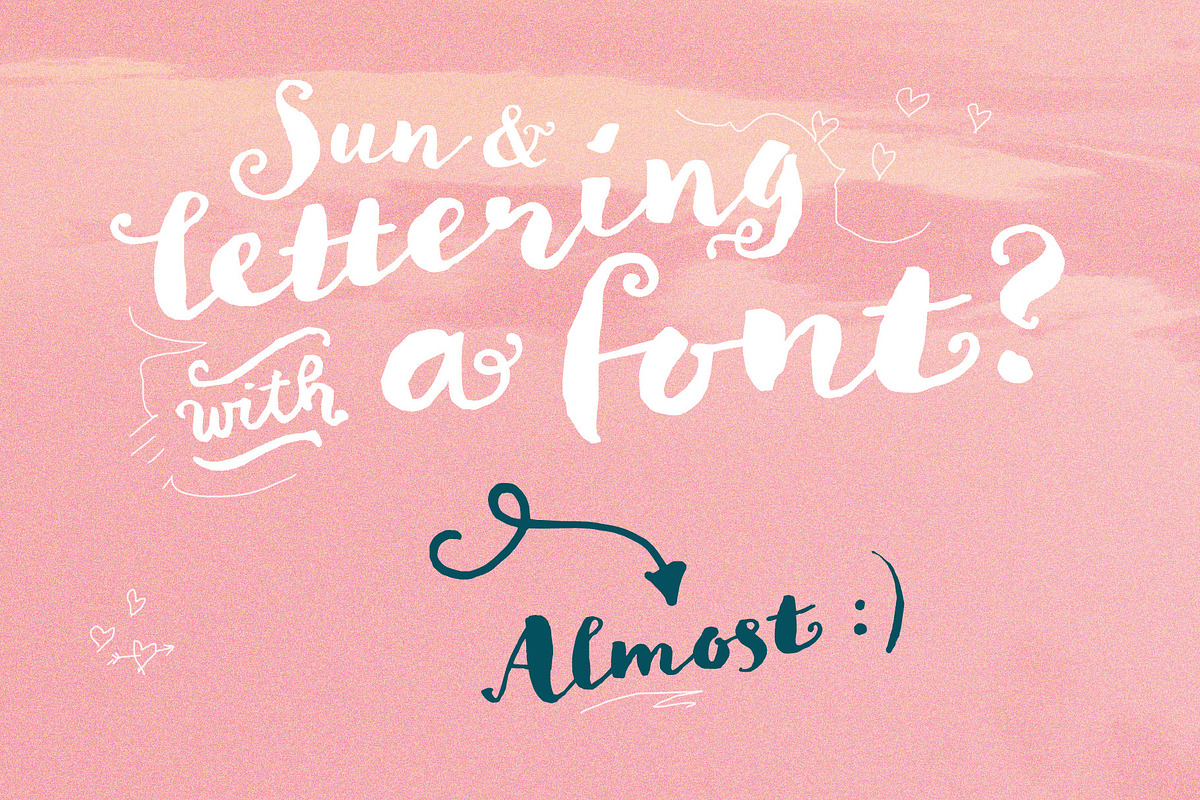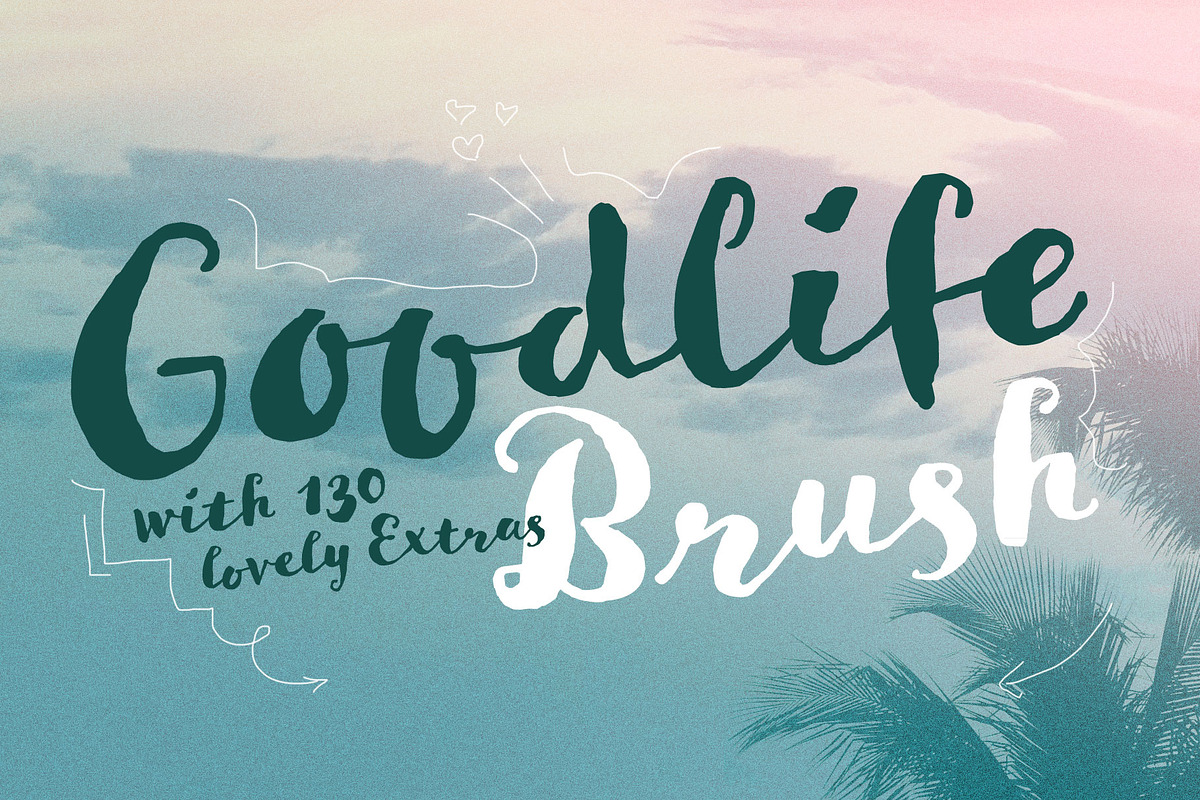
Goodlife Brush + Extras
The GoodlifeBrush is a lovely handlettering font designed by Hannes von Döhren with techincal support of Christoph Koeberlin. This font contains loads of features and a set of extras such as catchwords, arrows, ornaments & more. With this set and a little bit of love and care it is possible to create beautiful “handmade” graphics. Equipped with automatically exchanging alternates, ligatures, end forms, swash letters and some other features, Goodlife is optimized to feel not just like a font but like true handletterings.
- This font contains loads of features and a set of extras such as catchwords, arrows, ornaments & more.
- Equipped with automatically exchanging alternates, ligatures, end forms, swash letters and some other features, Goodlife is optimized to fee
- Goodlife Brush
- Goodlife Extras